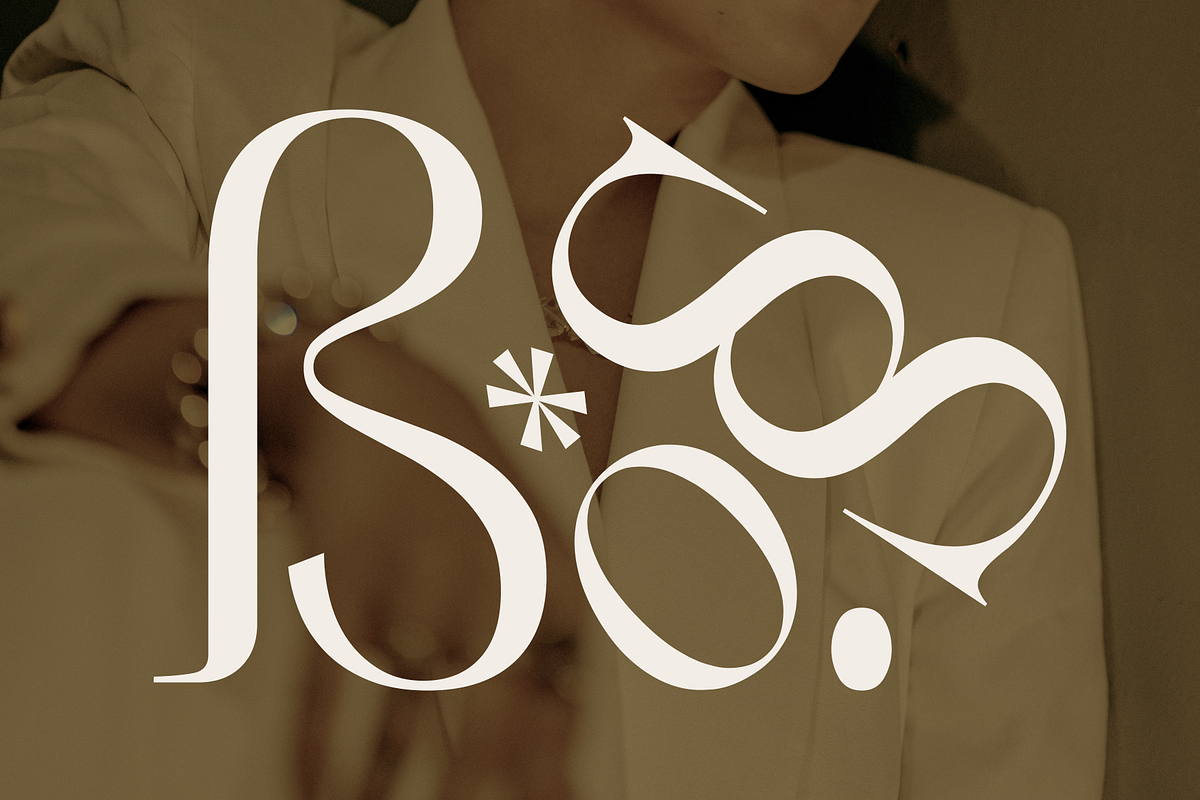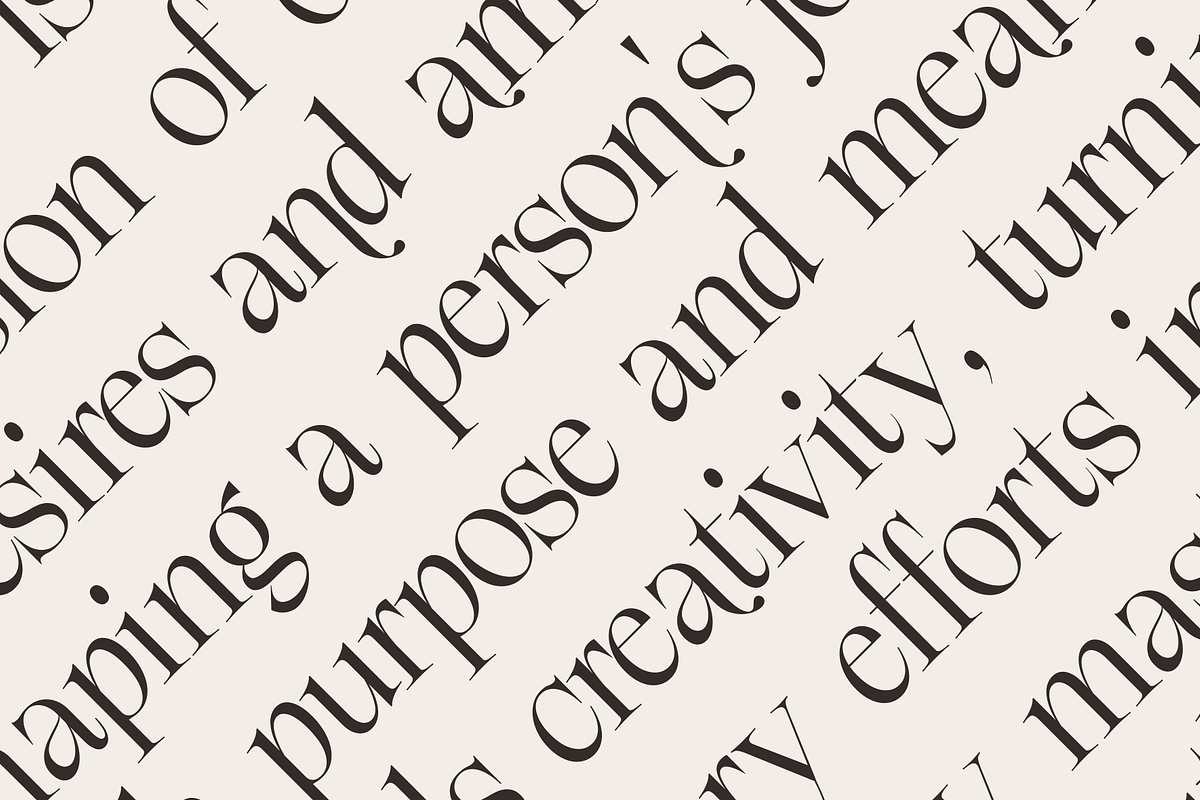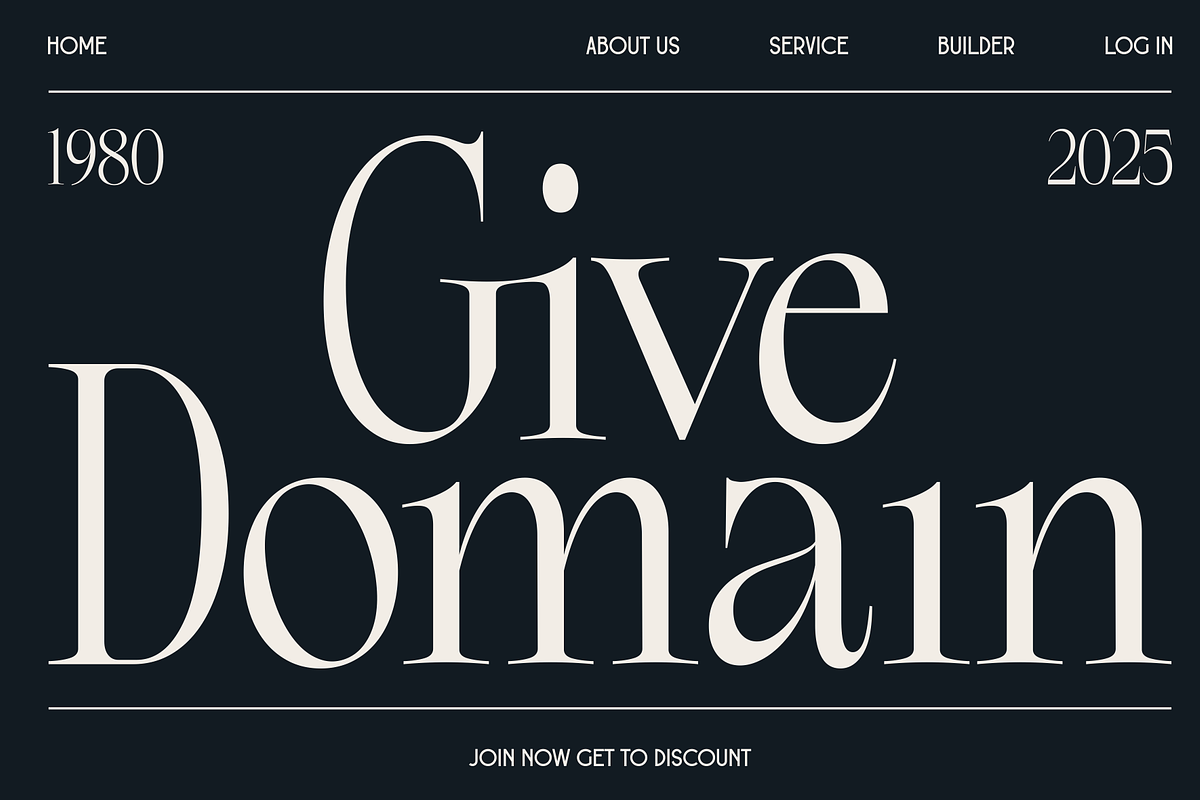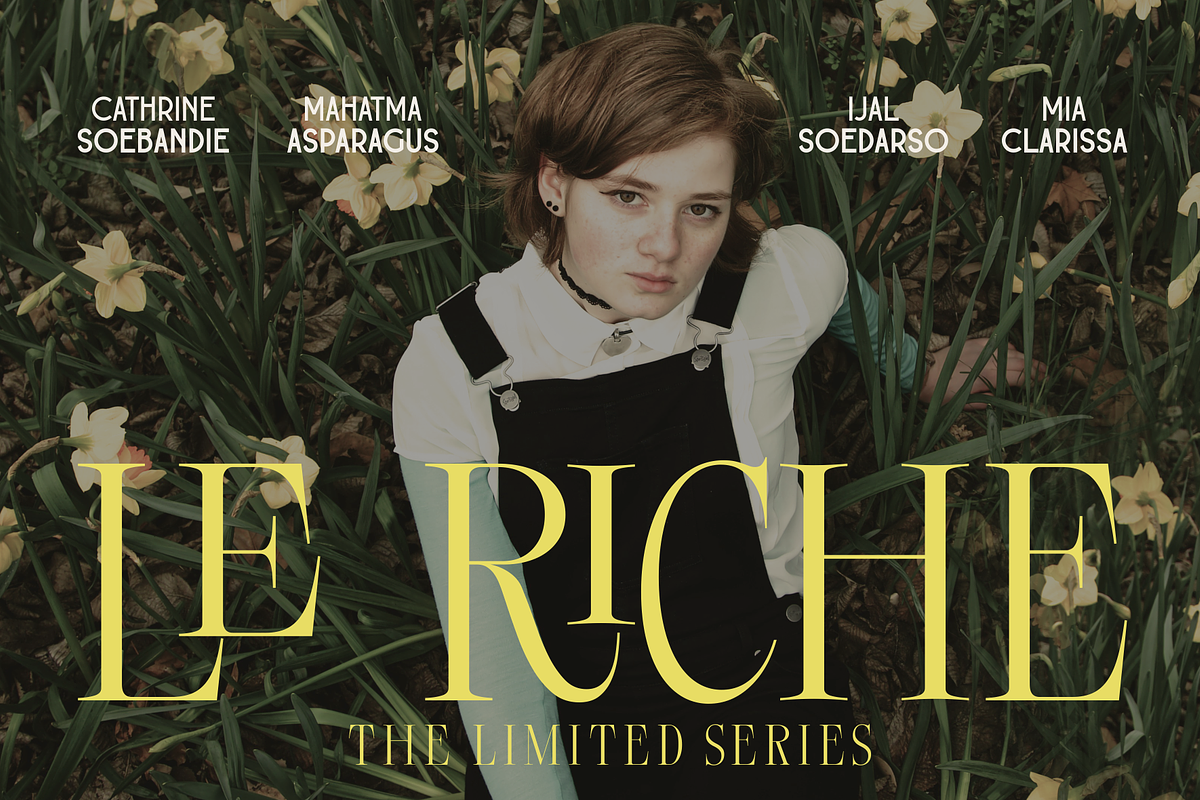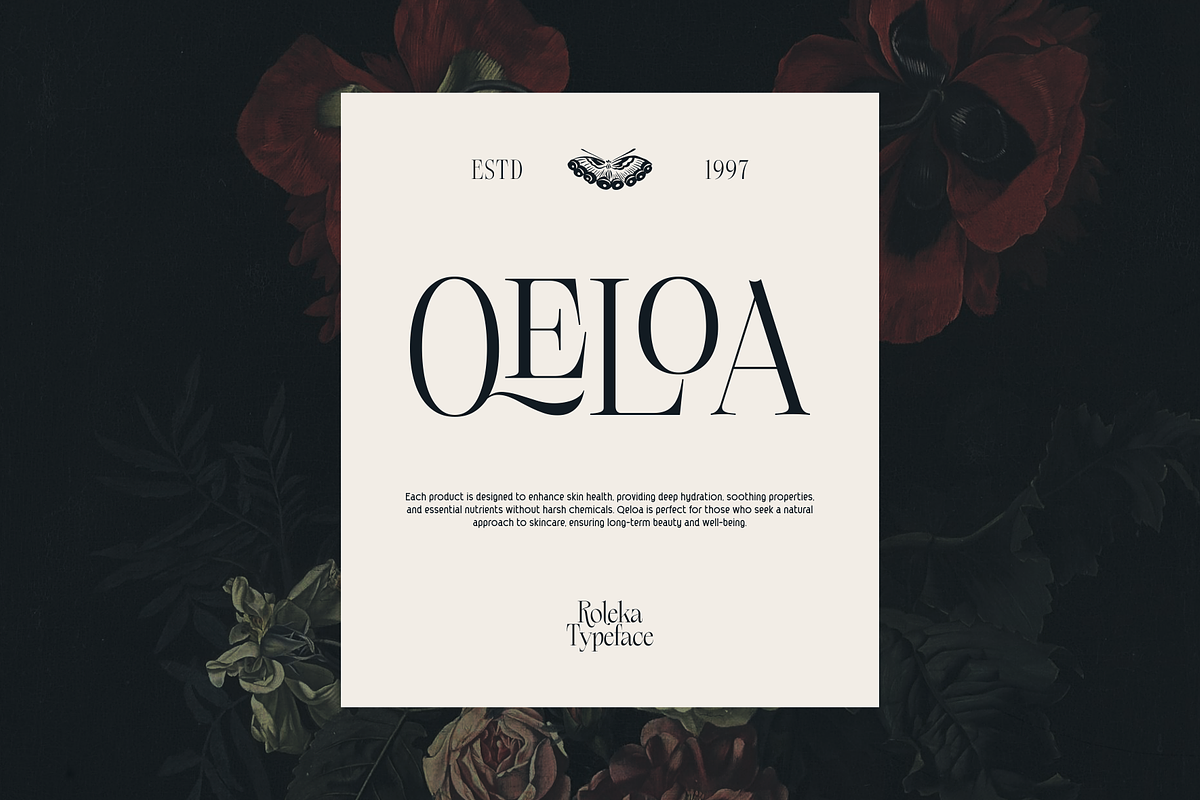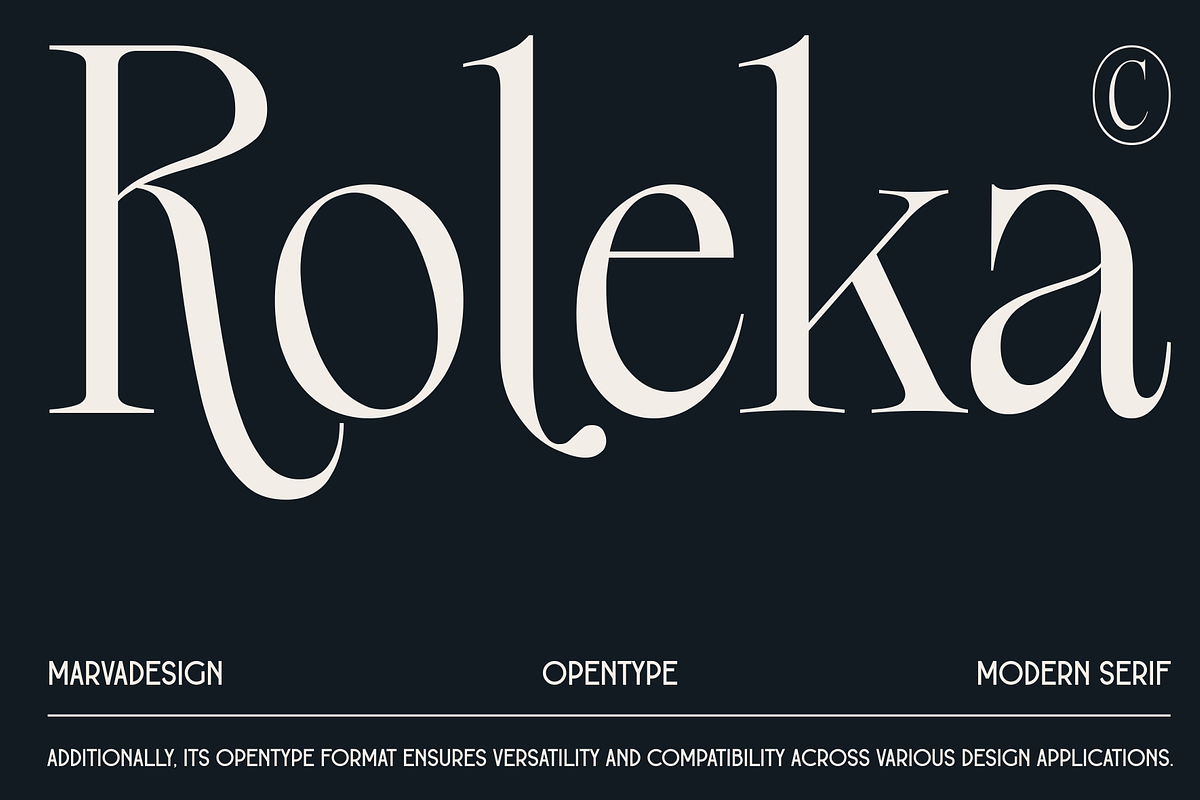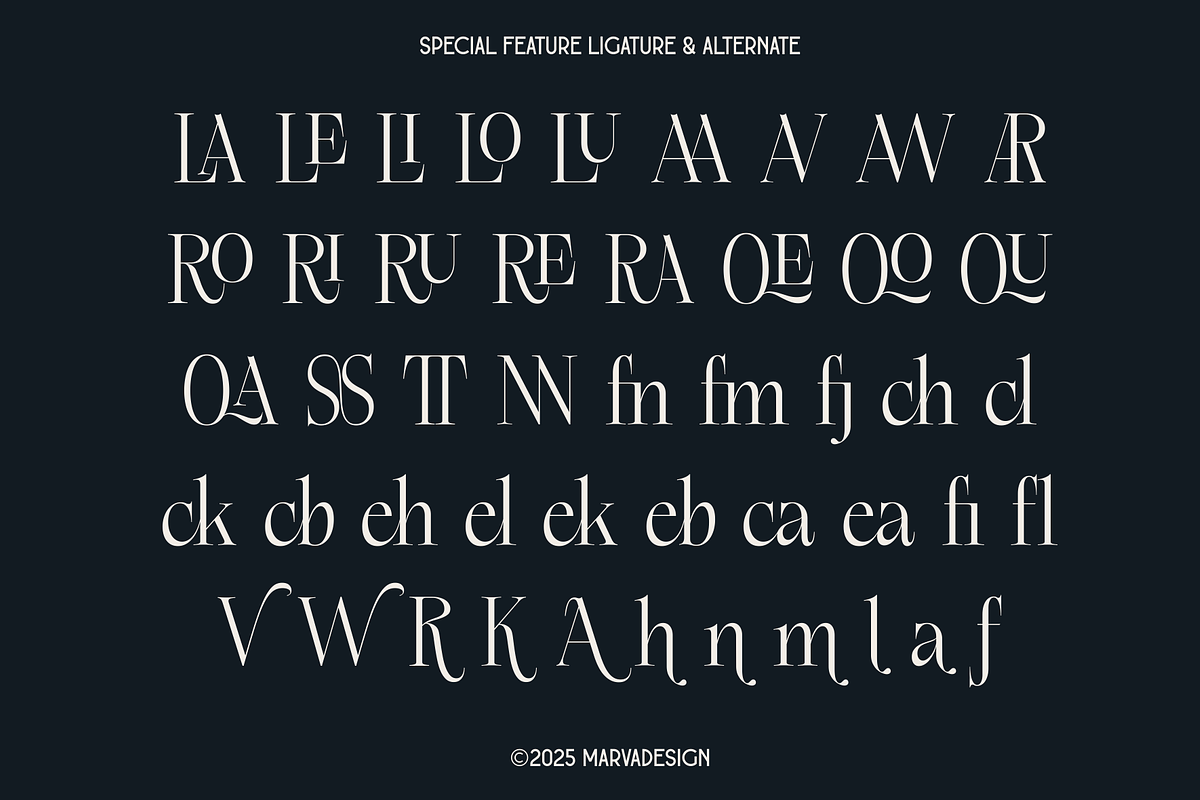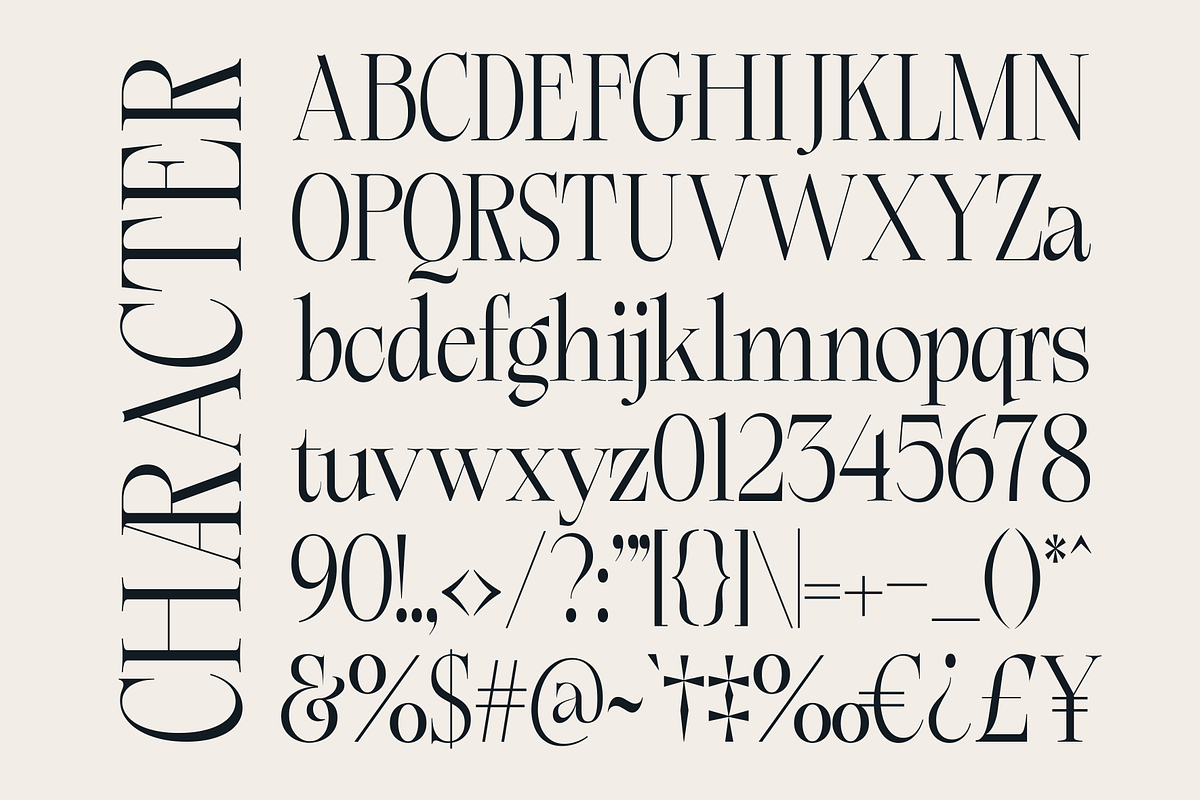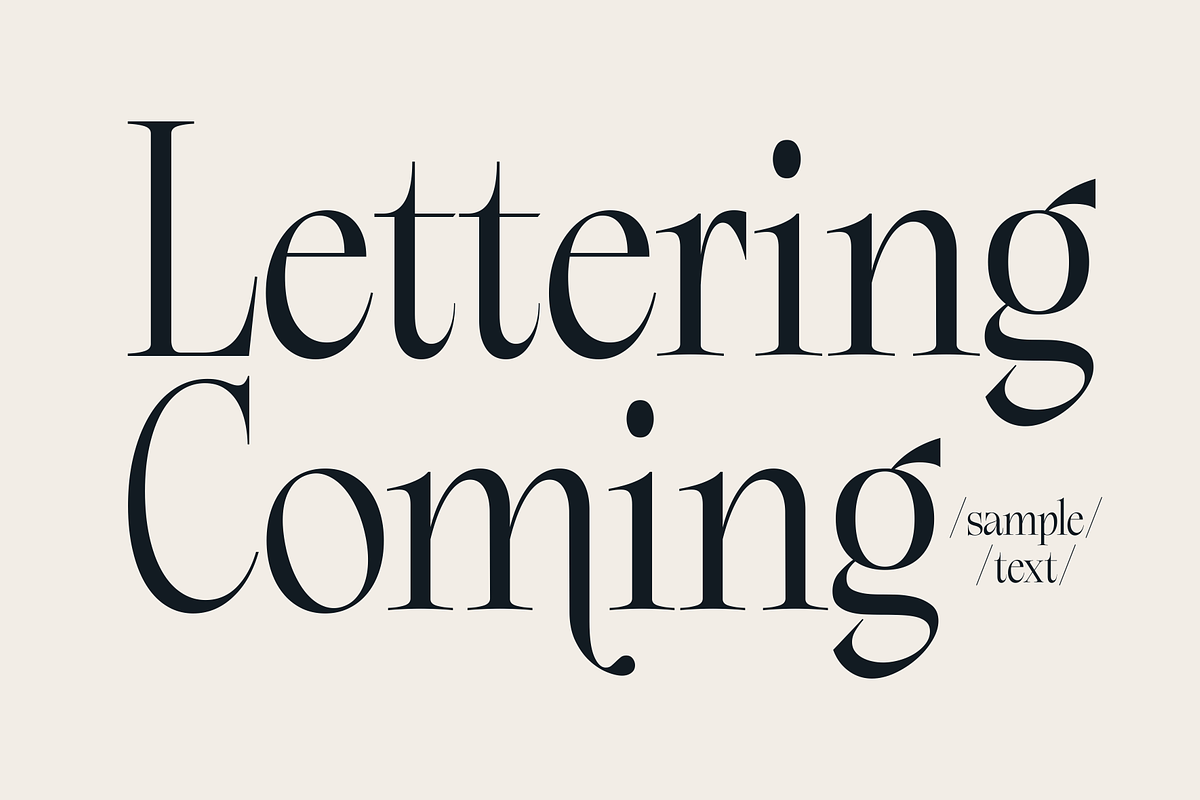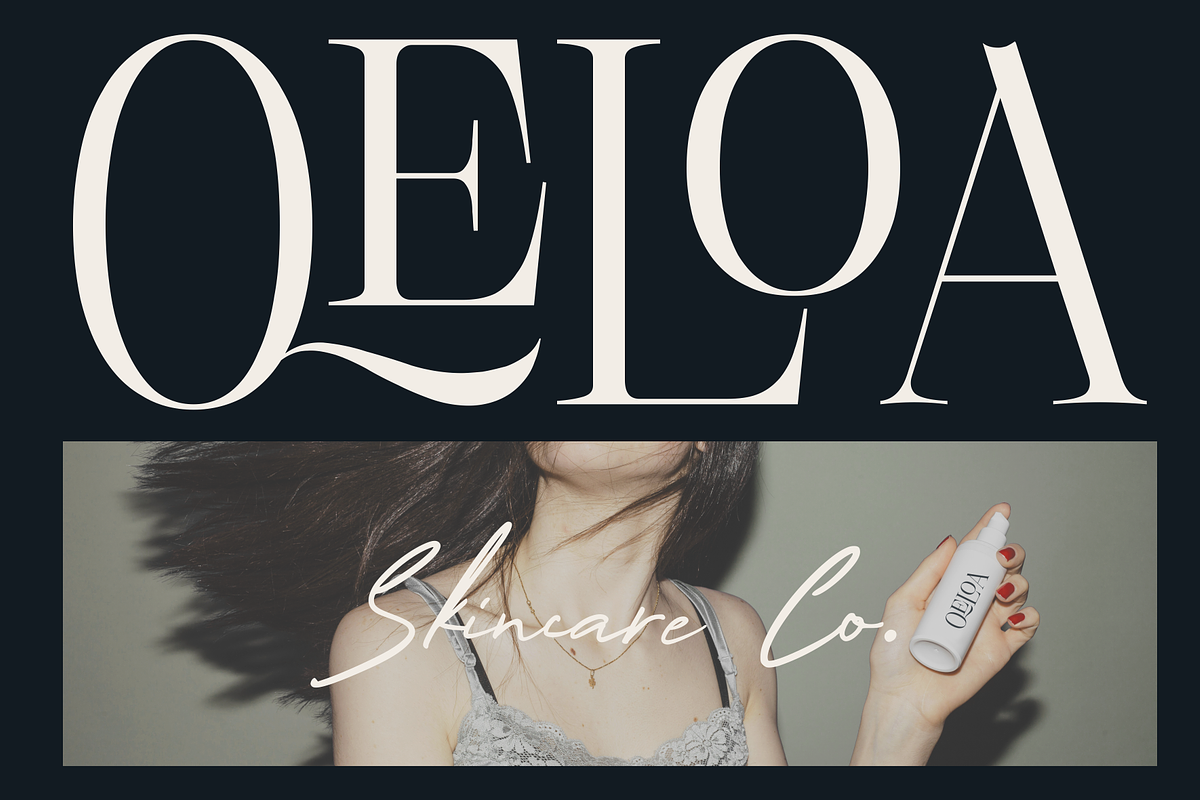
Roleka - Classy Serif Typeface
Introducing New Serif Typeface Roleka is a modern serif typeface with an elegant and sophisticated aesthetic. Its design features high contrast between thick and thin strokes, creating a refined and luxurious appearance. The elongated serifs and smooth curves add a sense of fluidity, while the sharp angles provide a contemporary edge. The font maintains a balance between classic and modern typography, making it suitable for branding, editorial design, and high-end packaging.